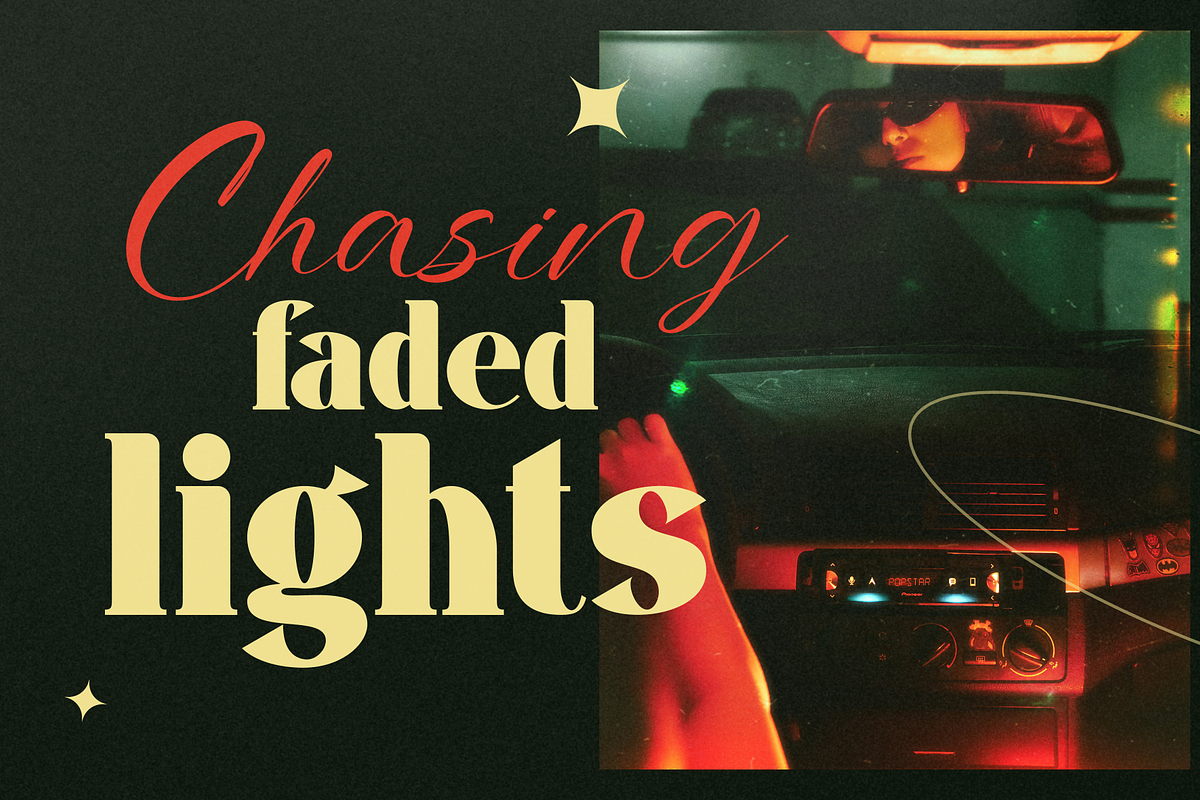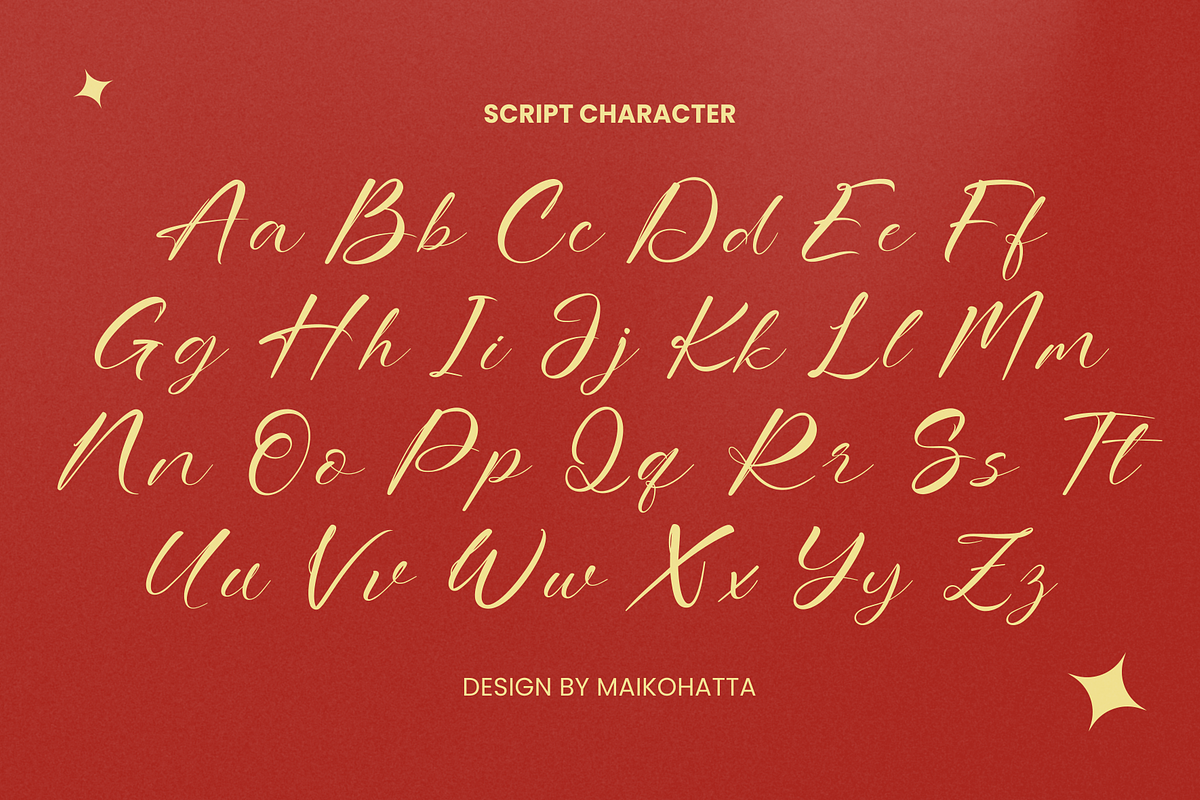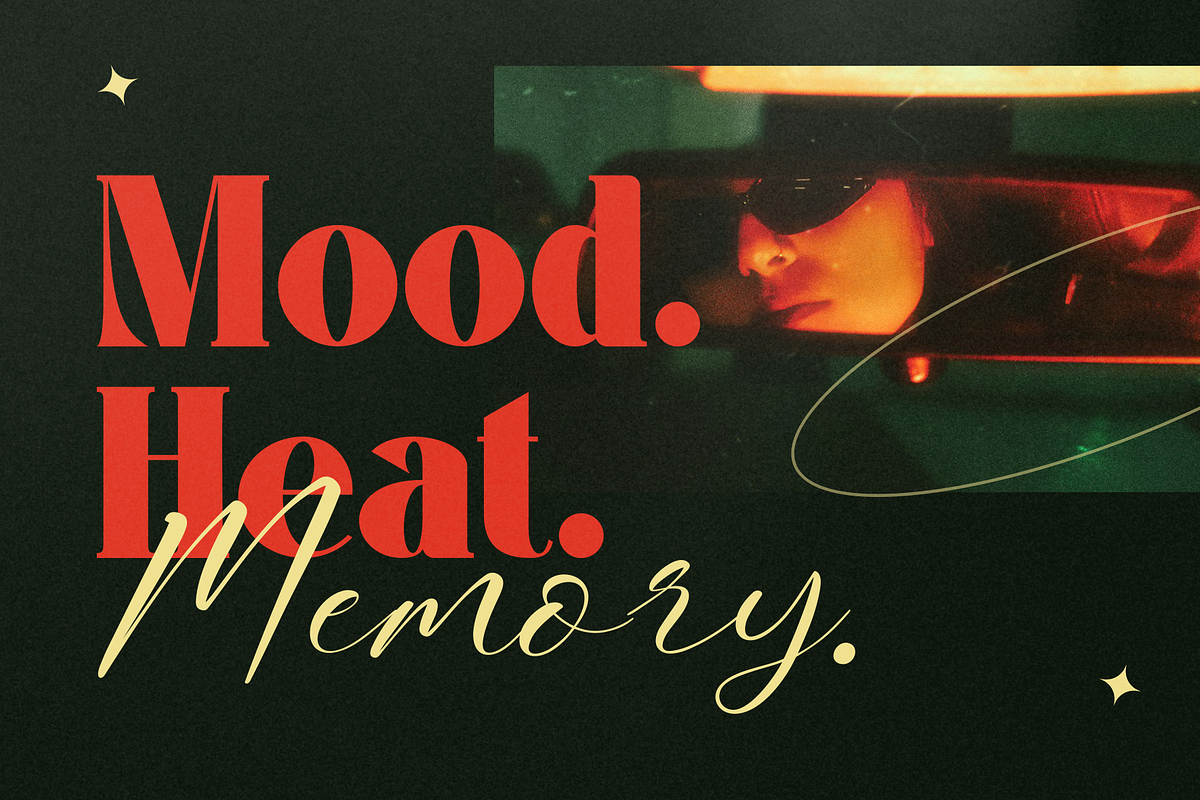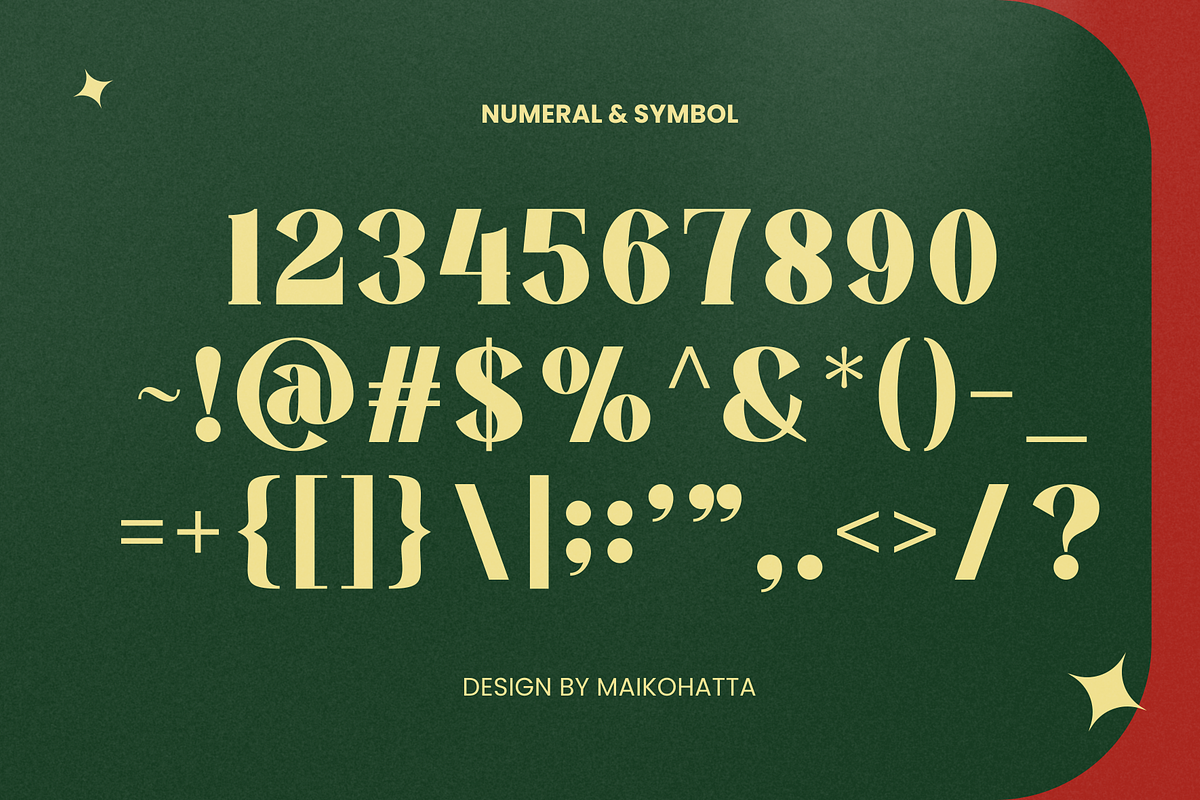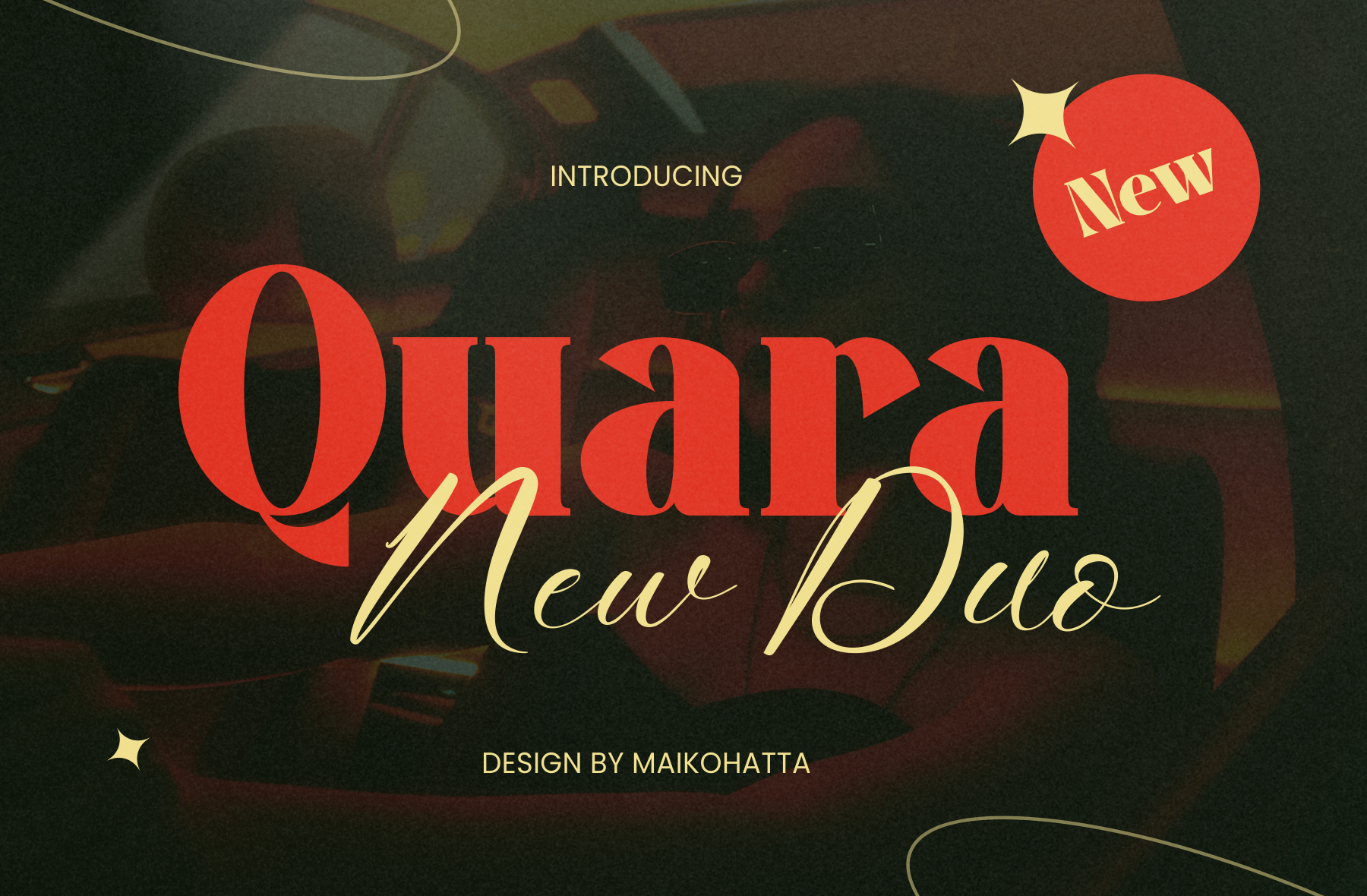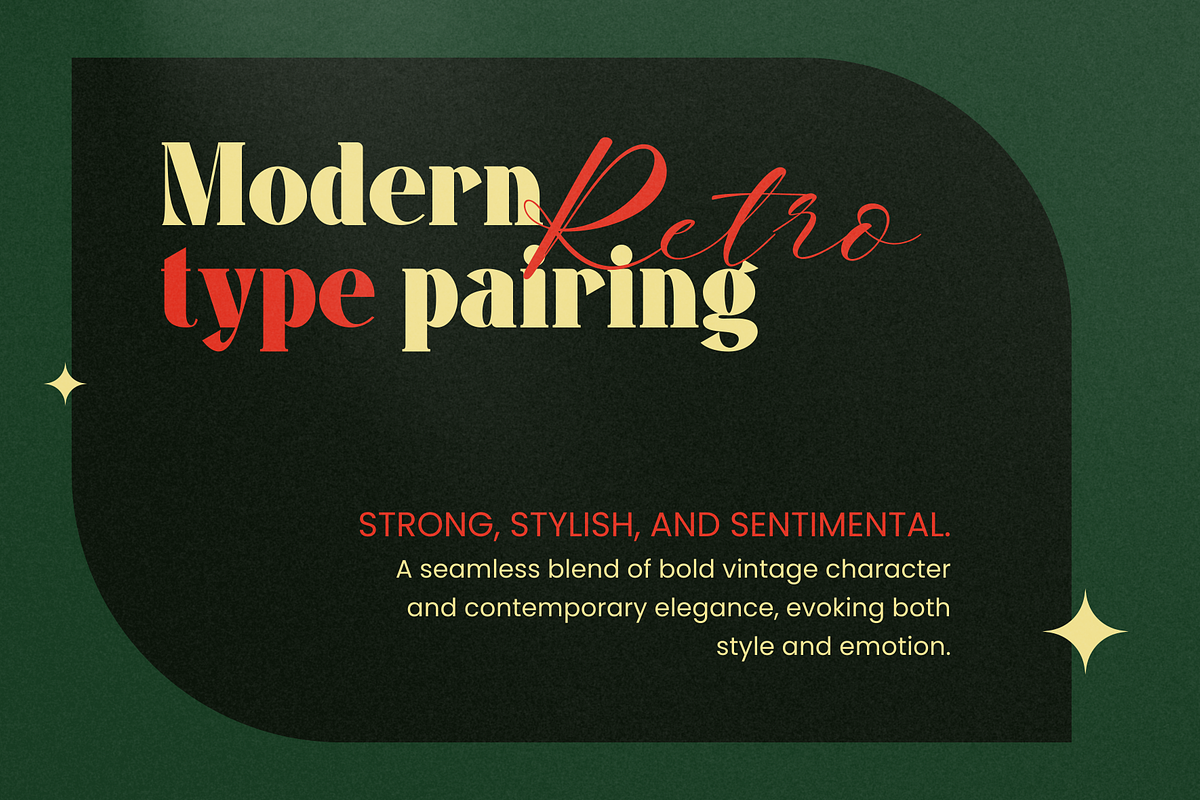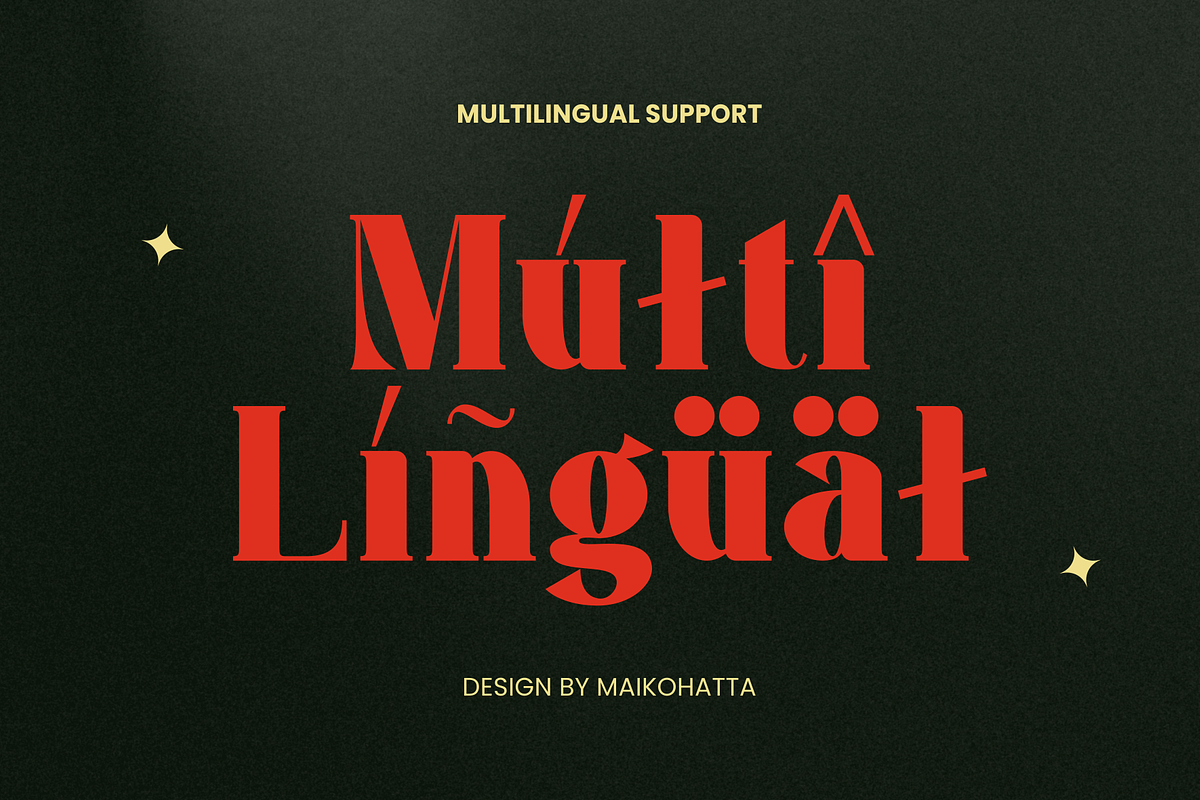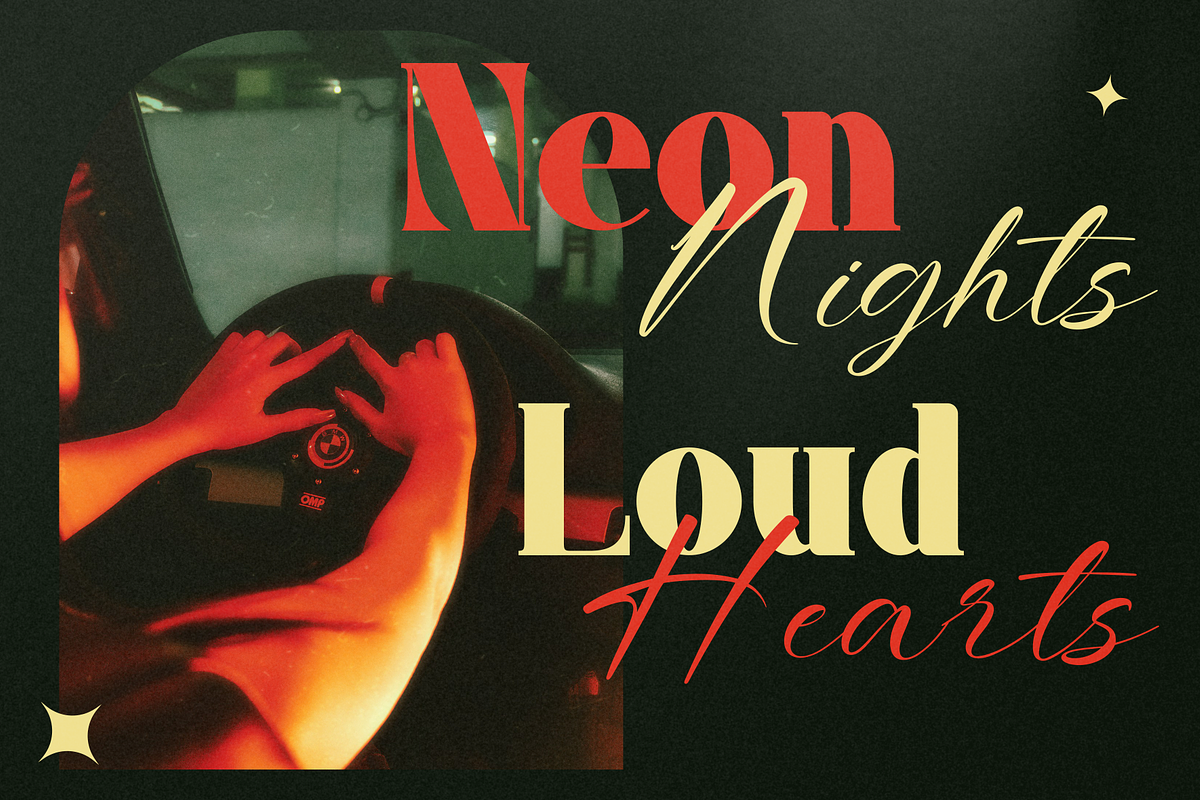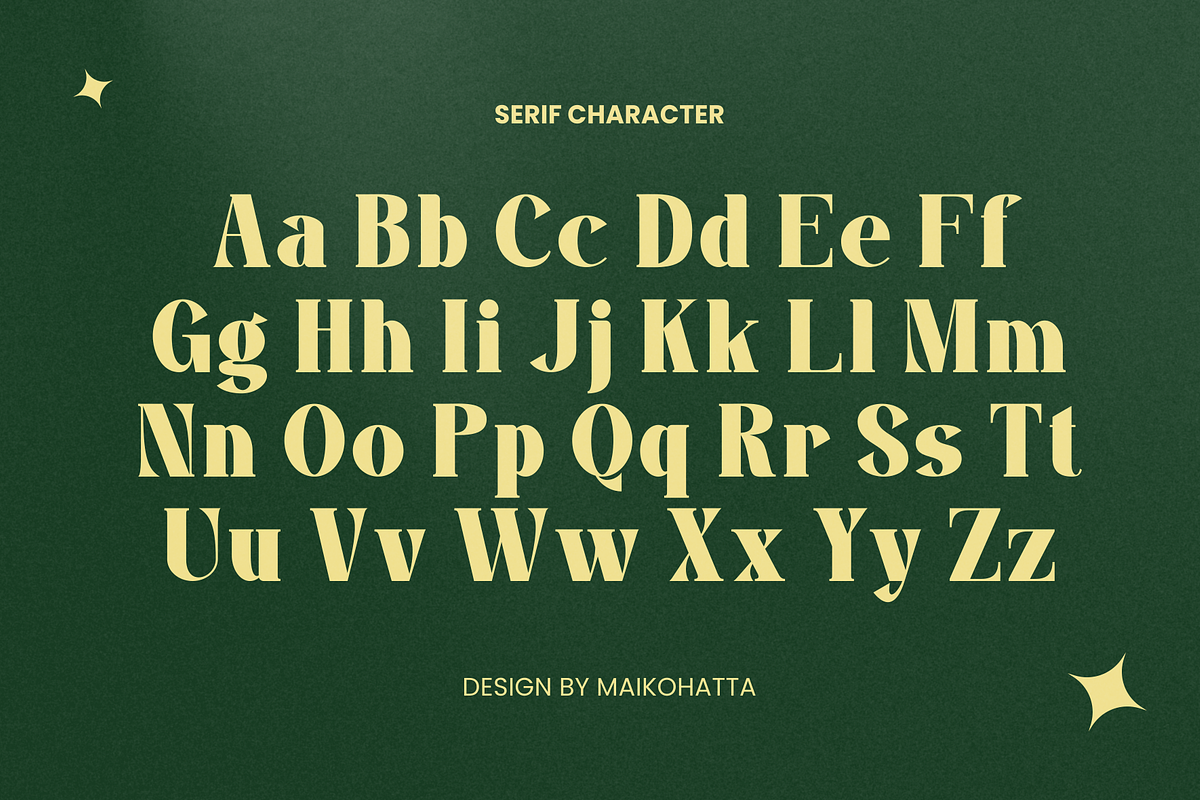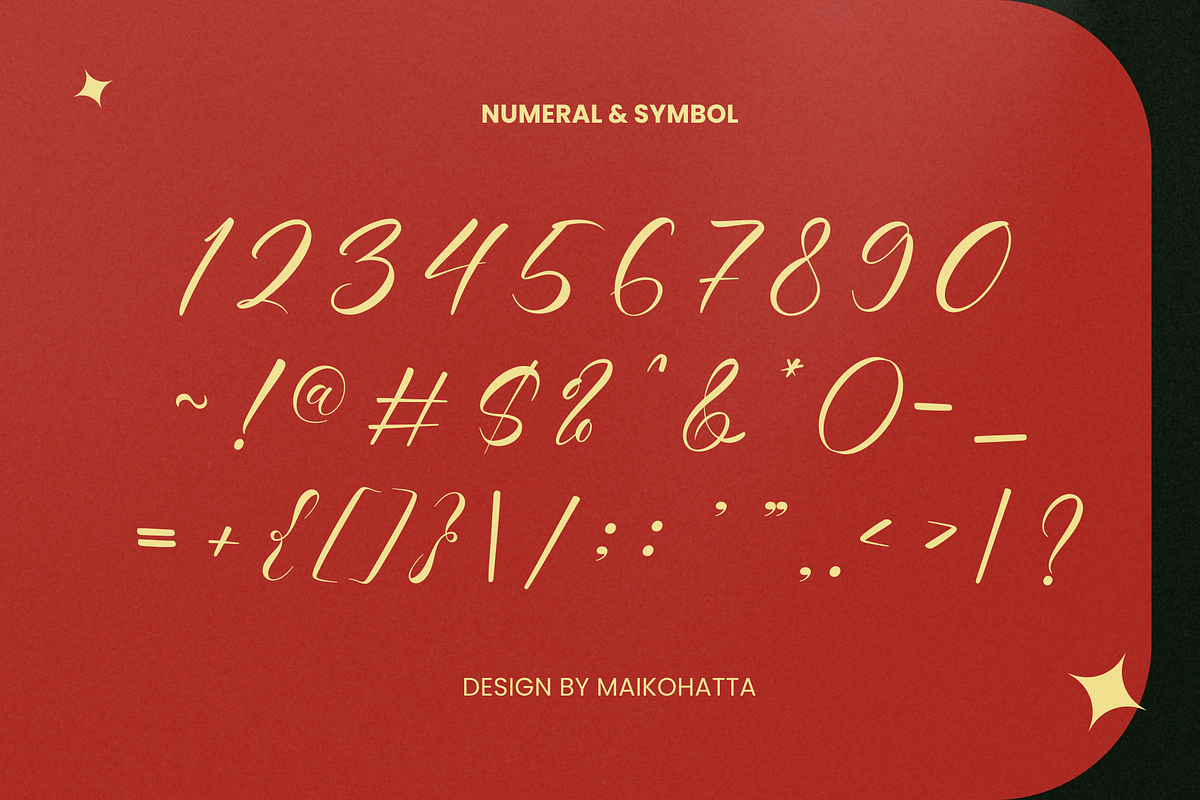
Quara - Font Duo Typeface
Introducing our new product Quara Font Duo Typeface
Introducing Quara, a stylish font duo that blends modern elegance with timeless character. Featuring a refined serif and a graceful script, Quara is designed to bring a harmonious balance of structure and flair to any creative project.
Whether you're crafting a luxurious brand, designing editorial layouts, or creating romantic stationery, Quara offers the versatility and charm to make your message unforgettable.
✦ What’s Inside: Quara Serif – A contemporary serif with high contrast, sharp details, and classic charm. Ideal for headlines, logos, and refined branding.
Quara Script – A smooth, flowing script with natural ligatures and an authentic handwritten feel. Perfect for names, taglines, and elegant accents.
With Quara, every letter tells a story—sophisticated, stylish, and irresistibly elegant.